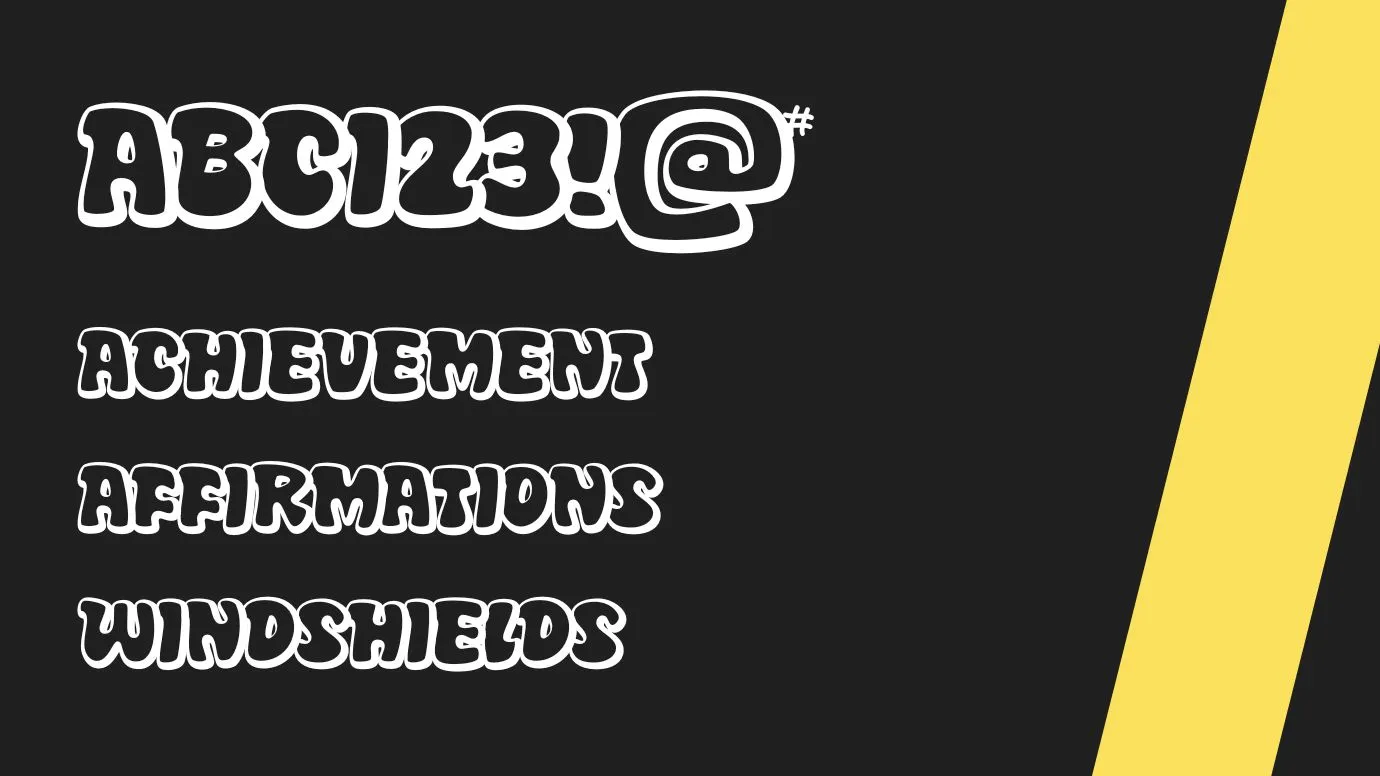
Disko font is a comic font that looks extremely stunning designed by famous designer Jess Latham. It has very unique letterforms that would bring an extraordinary touch to your bold headlines and titles.
The typeface has a stylish set in its every weight including uppercase, lowercase, numerals, punctuations, symbols, icons, and many more special characters.
The typeface is offering moderate swashes, texture ligatures, and superb glimpses perfect for logos, brands, packaging, magazine covers, headlines, and titles.
If you want to compare the font to another comic font then mr big stuff font matches well. Both have decorative styles and attractive characters that would add a remarkable touch to your designs in personal projects.
Whether you are looking for a fancy font for your next personal project this typeface will add some spookiness to your life. The font will give your project the eerie feeling it deserves.
The typeface is a great choice for highlighting all your fun designs. The font subfamily is Regular.
The font has all the qualities of an ideal typeface and adds a touch of whimsy to any project. The typeface comes in several alternate characters that can be easily accessed through the Open Type and True Type formats.
As the name suggests the typeface is known for its uniqueness and sets it apart from other font families.
Disko is a very comic font created by notable designer Jess Latham. With some stunning and outstanding features, it really stands out.
Is Disko typeface a Modern style?
Yes, This typeface is quite modern. Disko is a very Comic font that looks extremely stunning designed by famous designer Jess Latham.
Is Disko’s typeface texture a Comic style?
Yes, It has a Comic, fashionable, and exciting texture. The typeface is a great choice for highlighting all your fun designs.
Where can I use Disko’s typeface texture?
It is perfect for logos, brands, packaging, magazine covers, headlines, and titles.